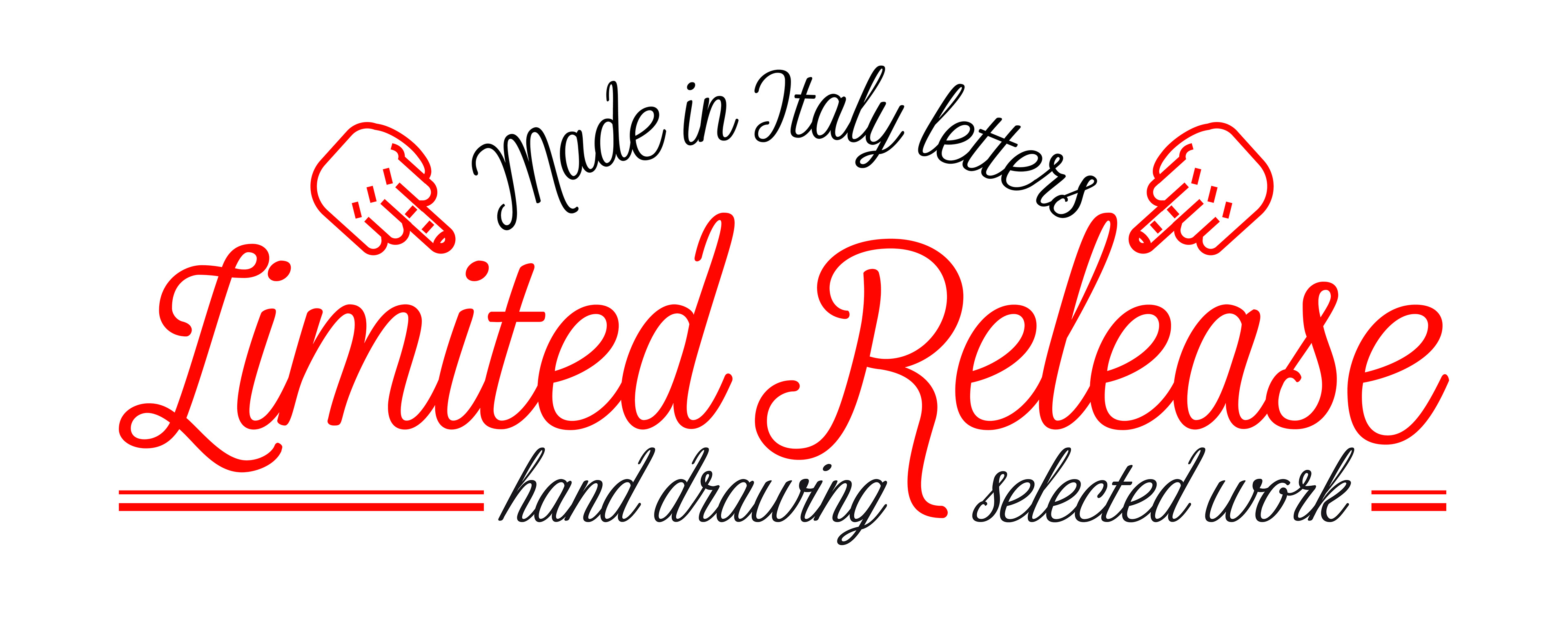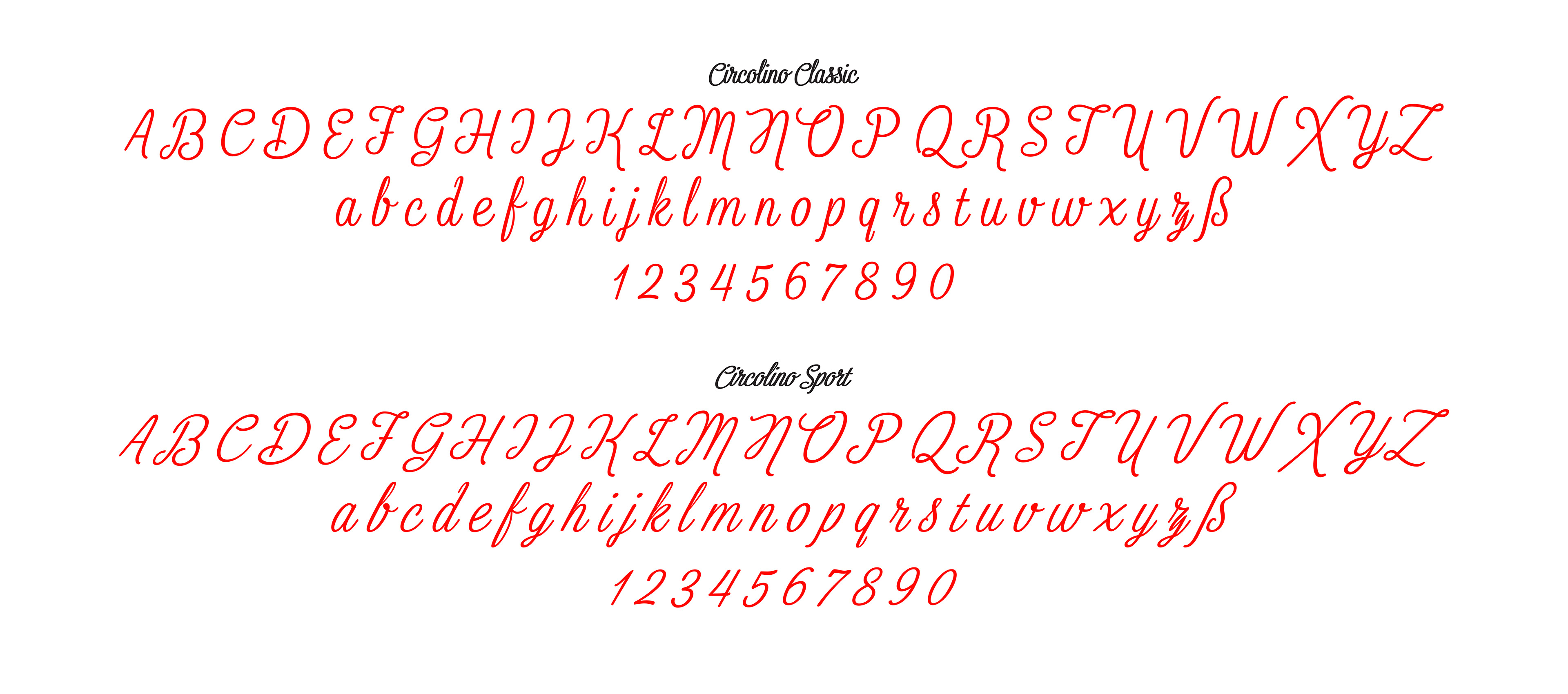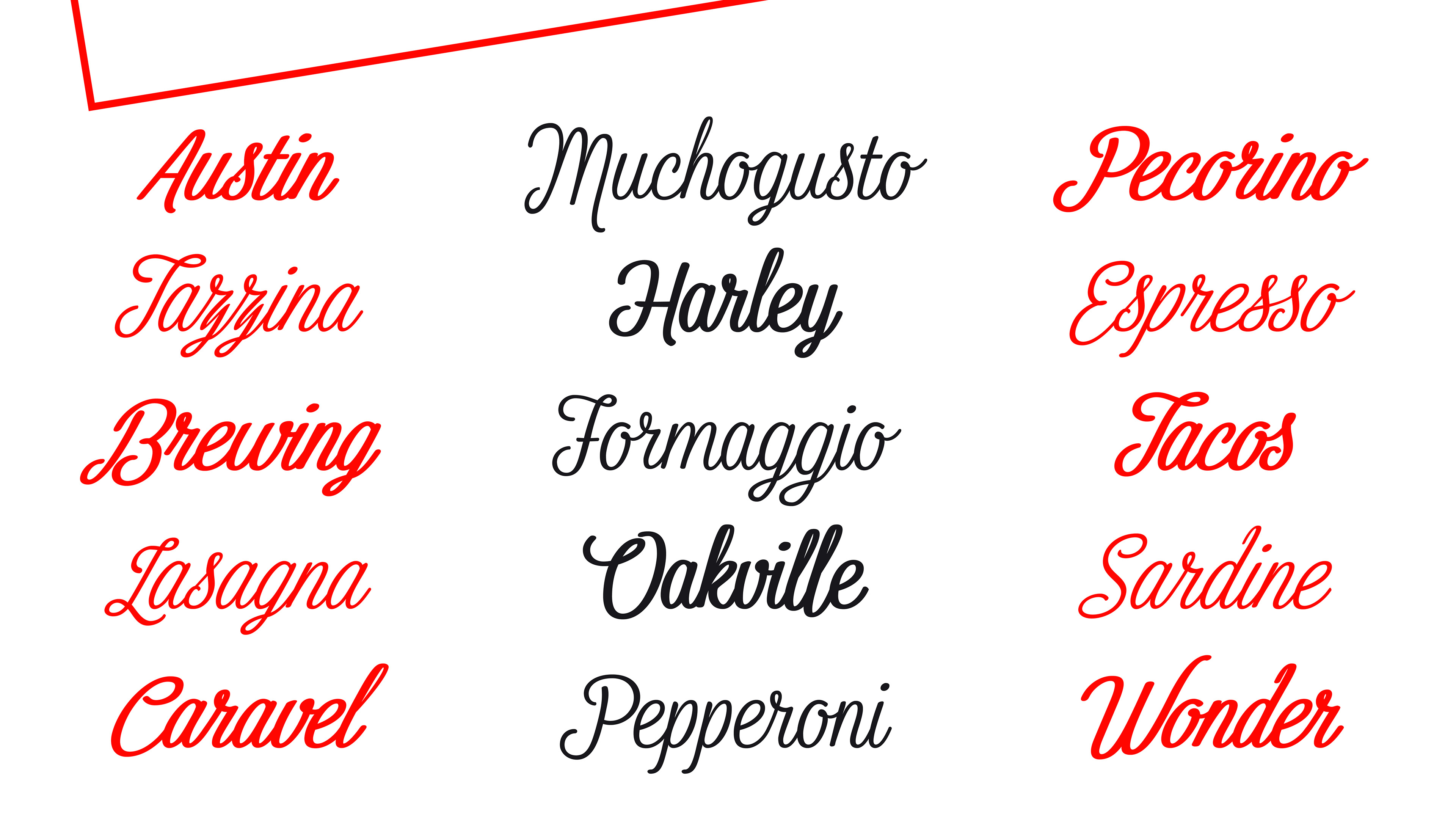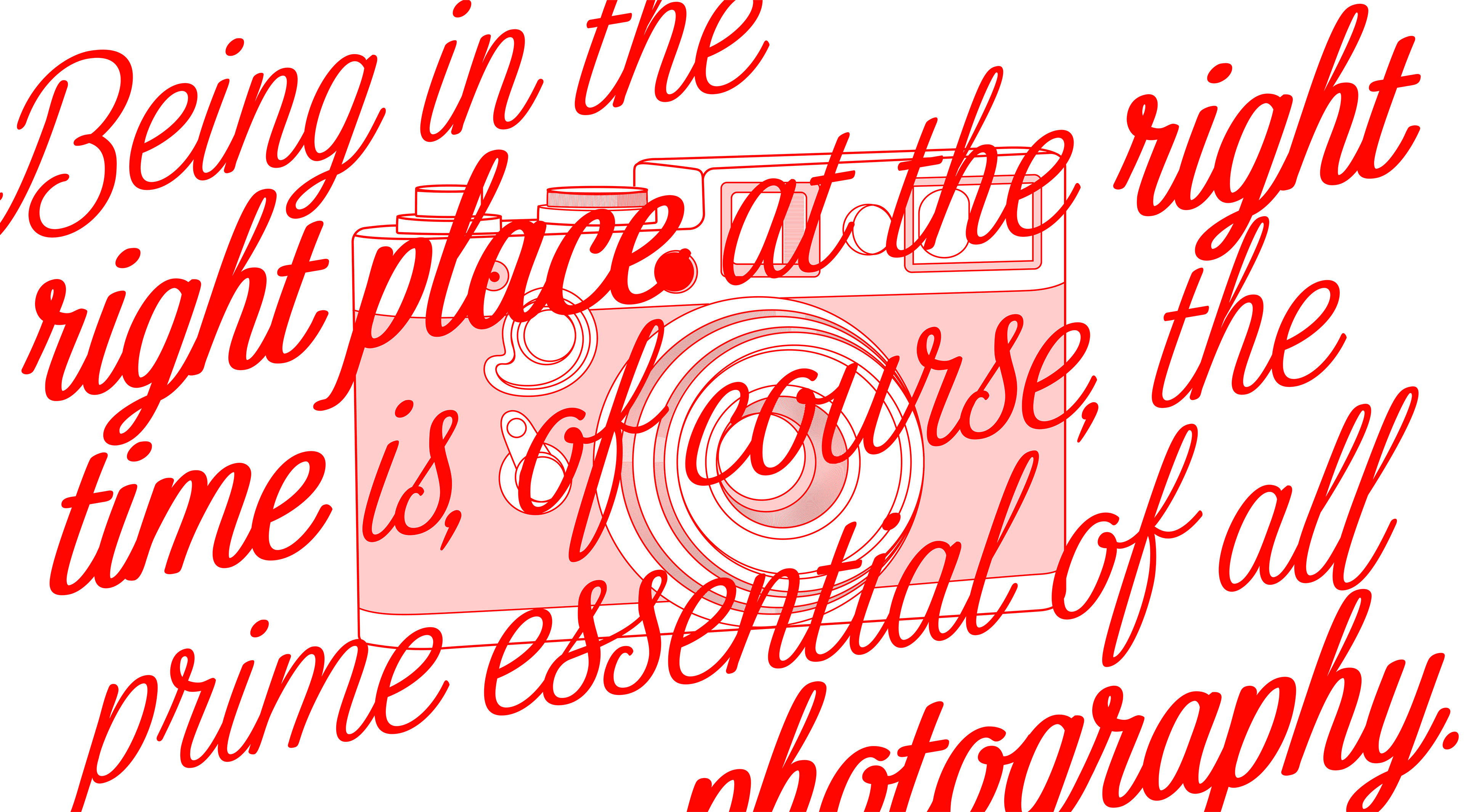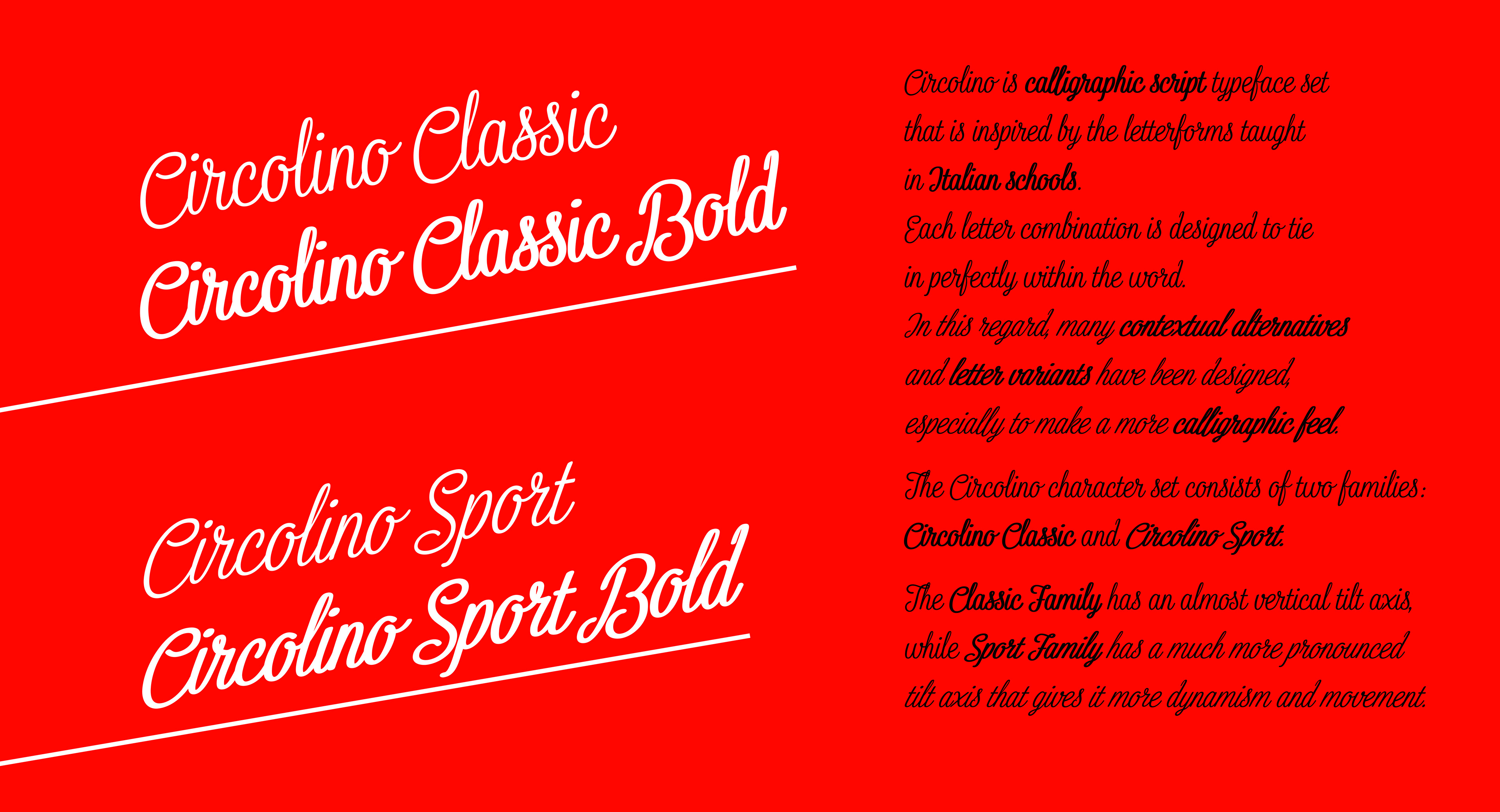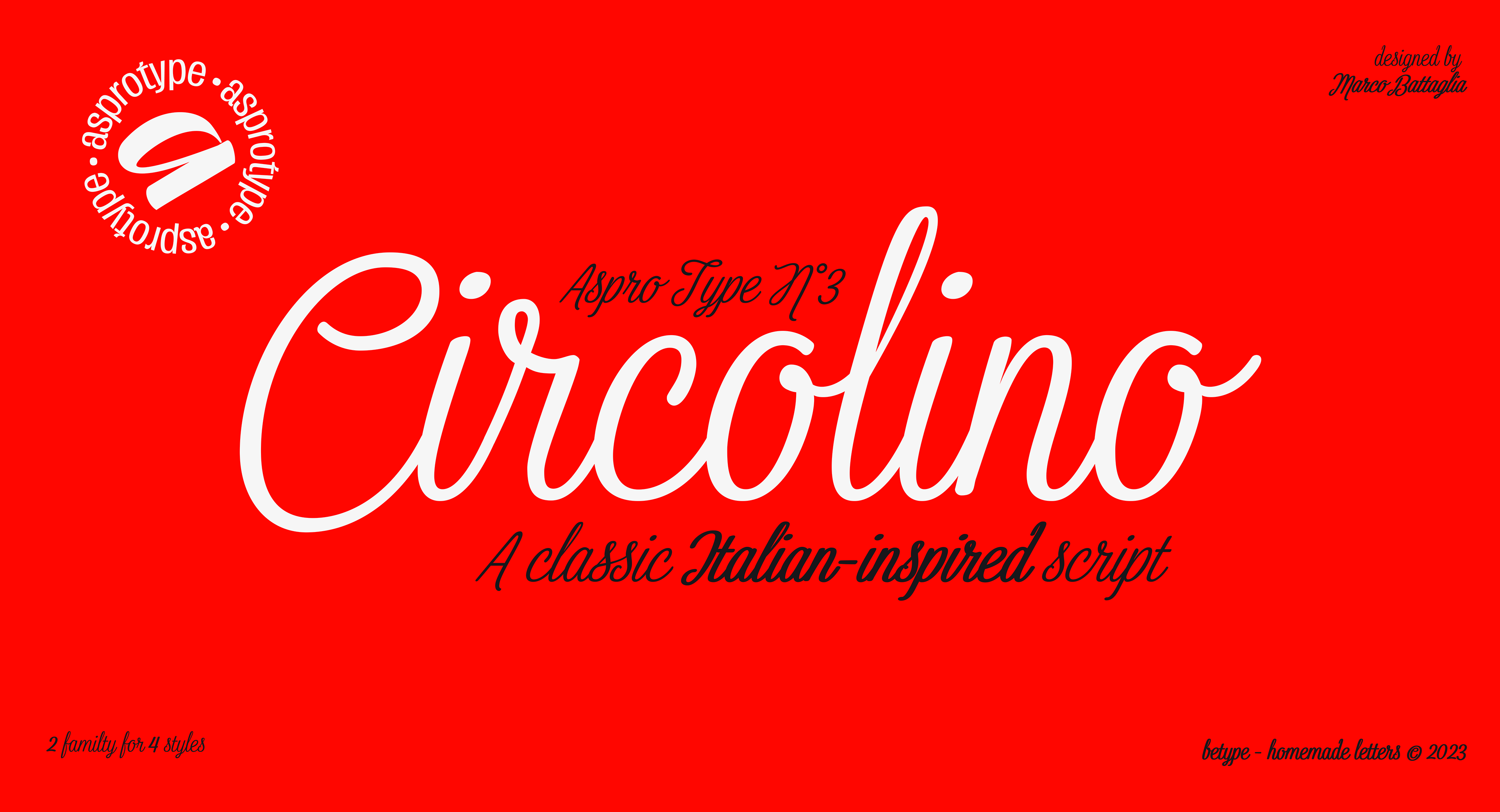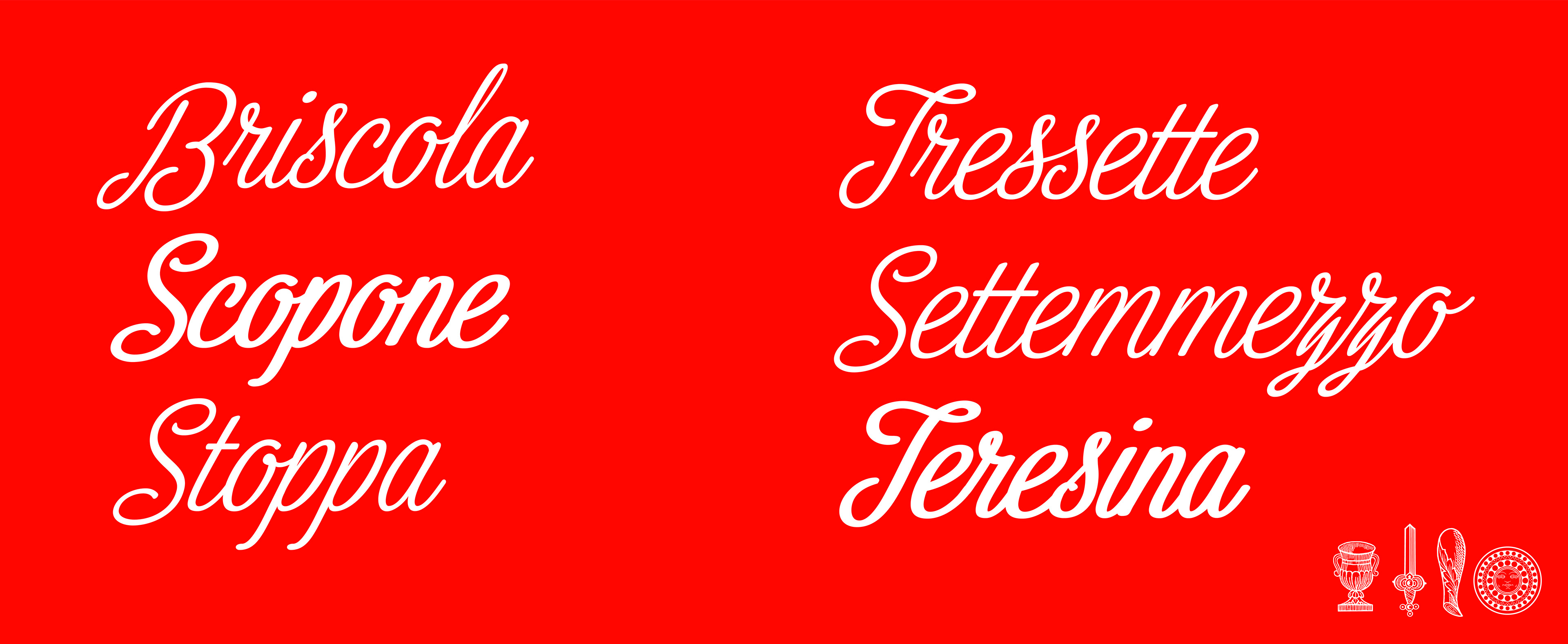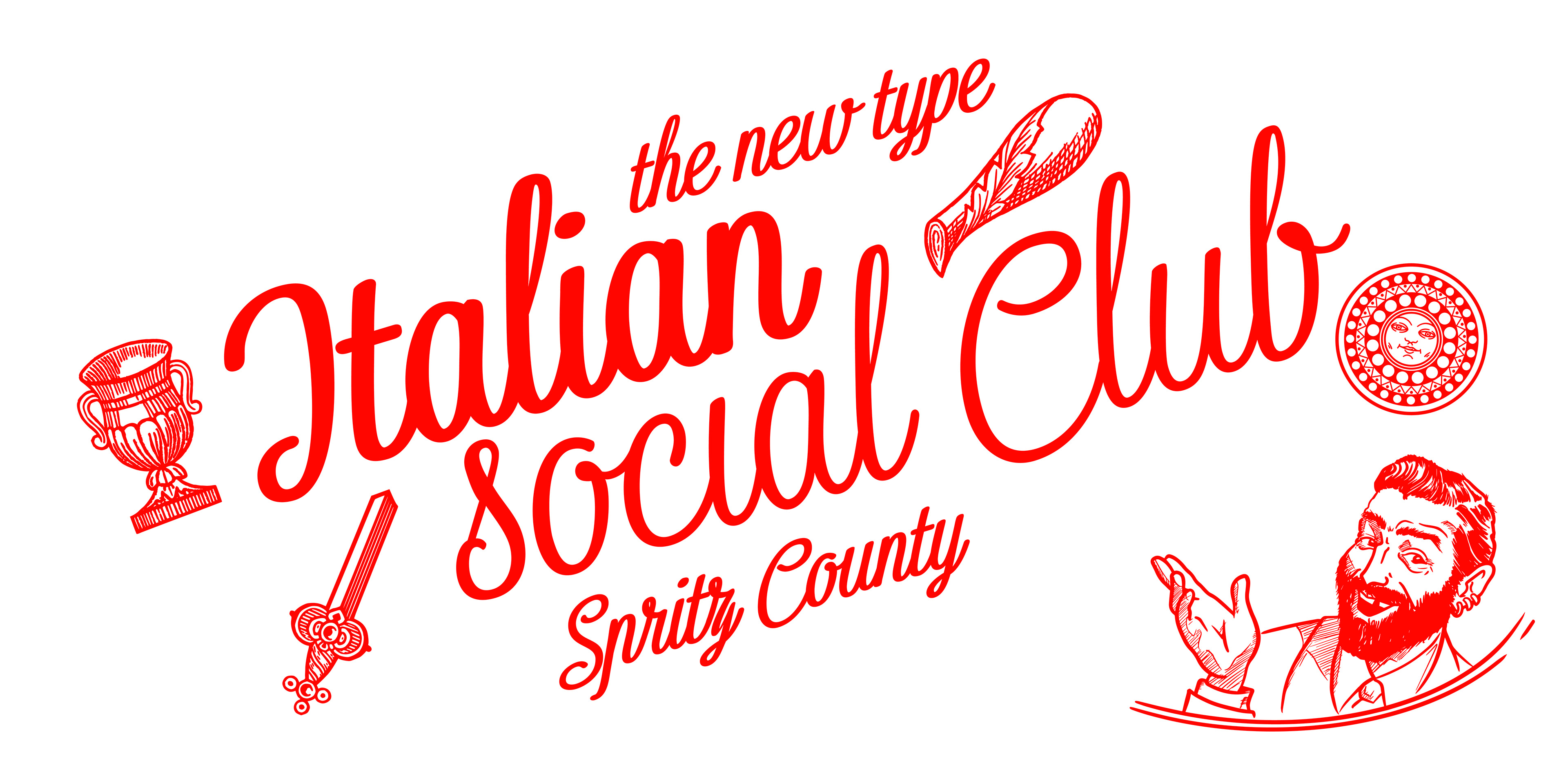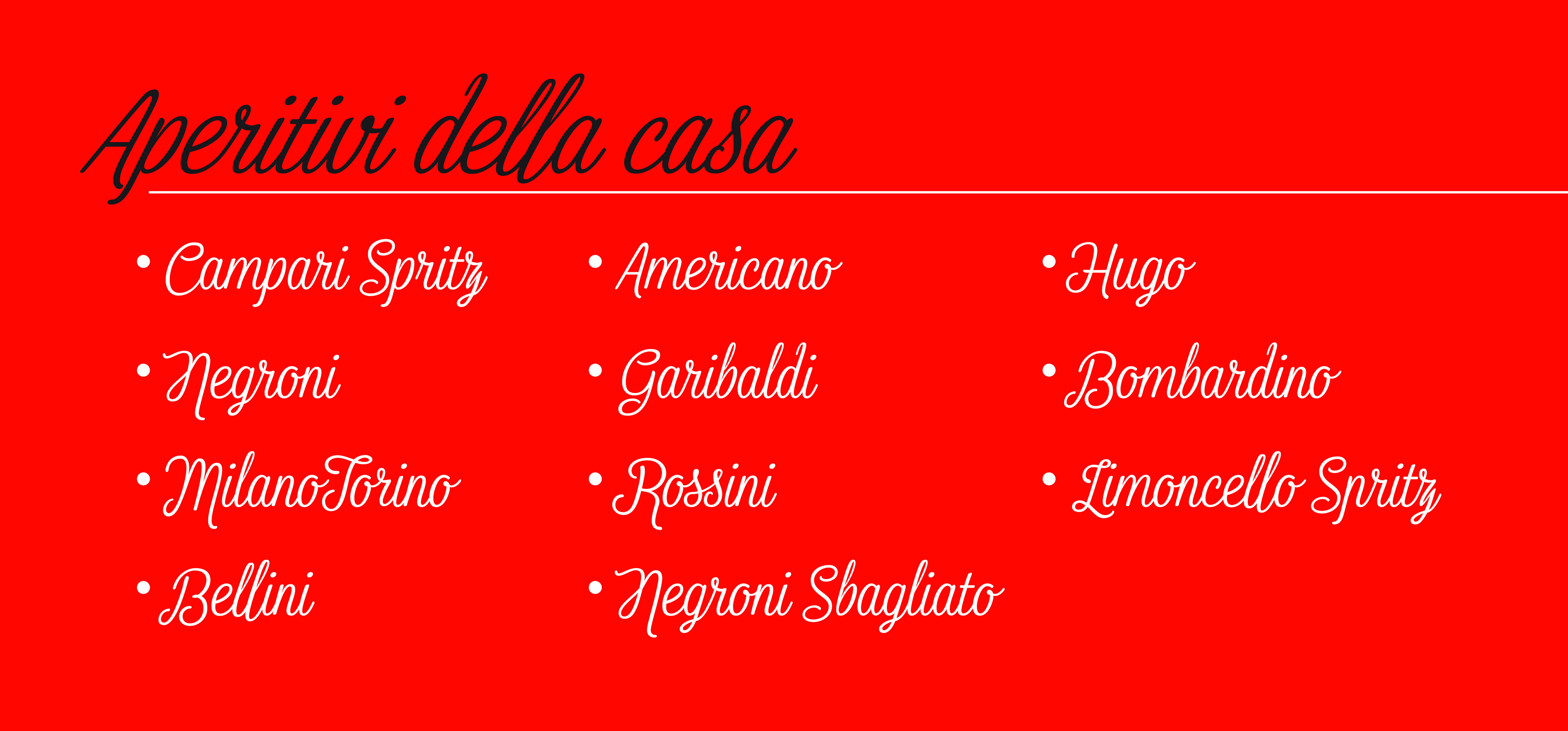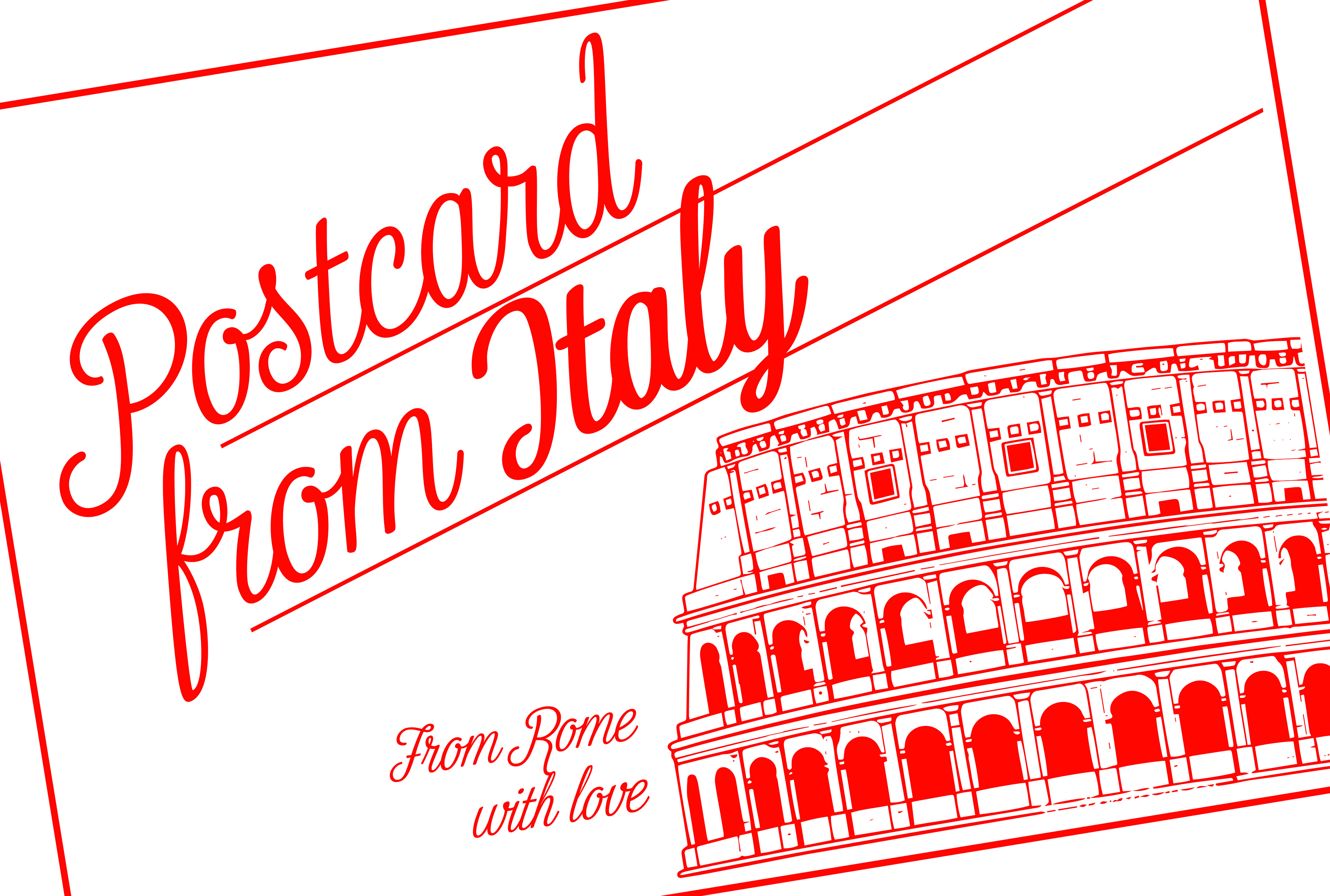
Circolino is calligraphic script typeface set that is inspired by the letterforms taught in Italian schools. Each letter combination is designed to tie in perfectly within the word. In this regard, many contextual alternatives and letter variants have been designed, especially to make a more calligraphic feel. The Circolino character set consists of two families: Circolino Classic and Circolino Sport. The Classic Family has an almost vertical tilt axis, while Sport Family has a much more pronounced tilt axis that gives it more dynamism and movement.
Feel Italy with Circolino.